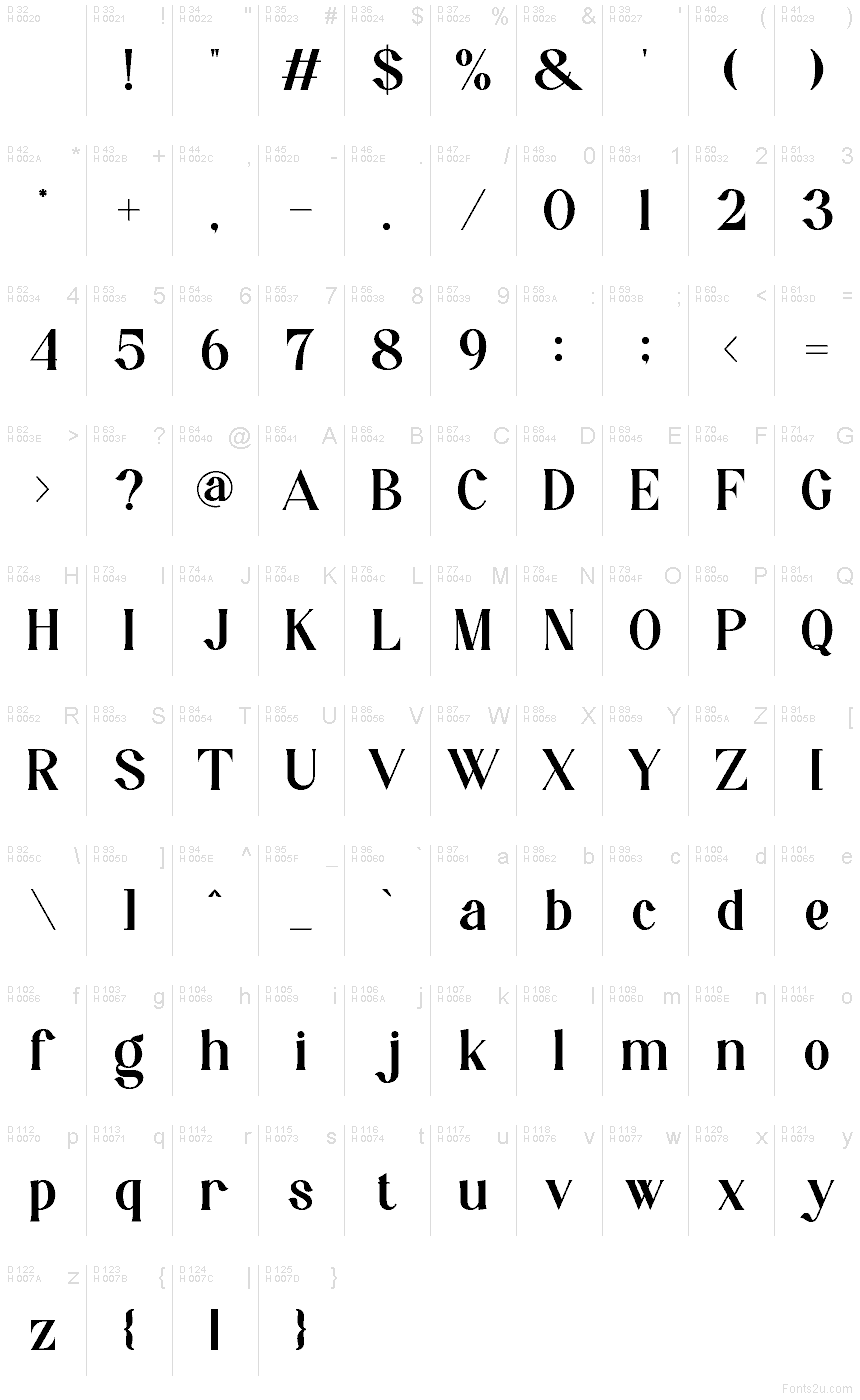
Resien Regular
Resien font by Ermedia Studio is a free high-contrast serif display font. Carved, blade-like serifs meet smooth, inky curves, giving each letter a sculpted snap that feels both refined and a touch rebellious. The rhythm is tight and confident, with strong verticals that hold attention and soft bowls that add a luxe finish.
Using Resien, headlines gain instant editorial drama without turning fussy. It shines on magazine covers, beauty and fashion logos, boutique packaging, book jackets, posters, and premium social graphics. This free font loves big sizes and generous margins; pair it with a quiet, modern sans for body copy to let Resien sing in the spotlight.